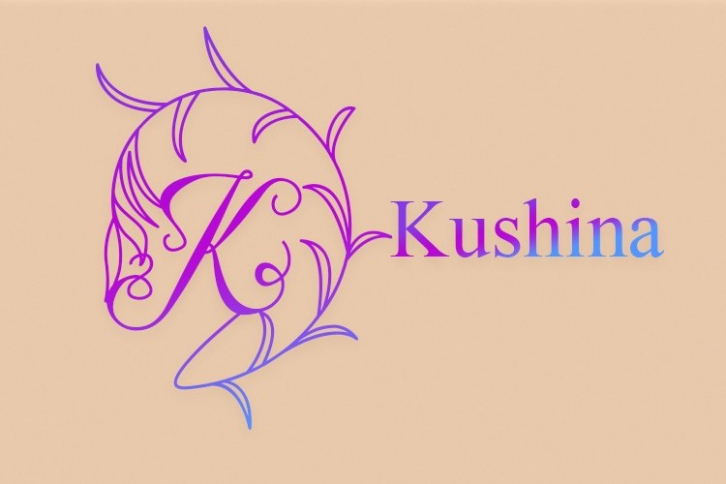
Kushina Monogram is a gorgeous font that was realeased on April 25, 2021. The font can be used in many style contexts and design environments. Perfect for invitations, magazines, websites, logos, and more! It was designed by Nabila Graphic and the file size is 13.90 MB. Thanks for checking out this font!